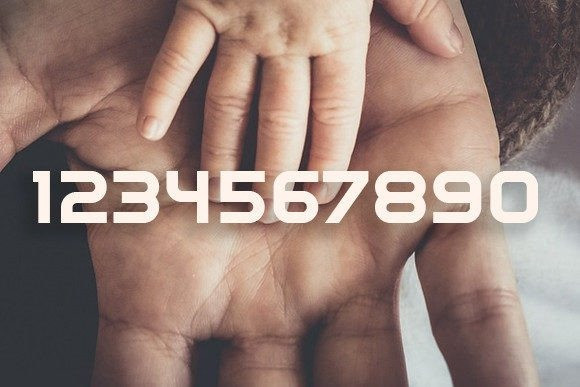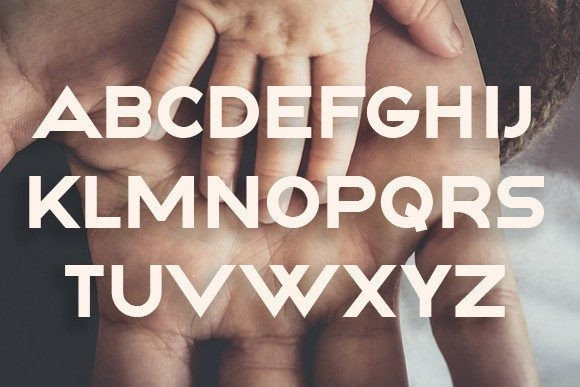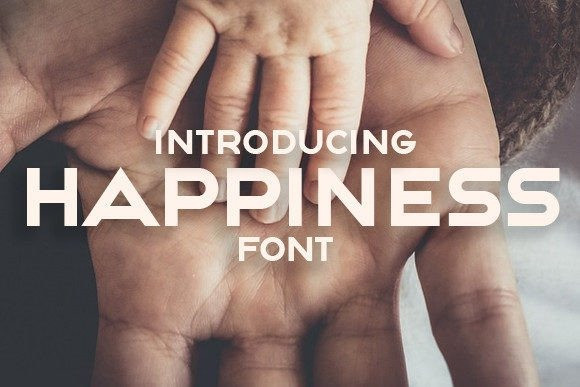
Happiness Font
Looking for a unique, stylish, and fun font for your next project?Introducing Happiness Sans Serif Font, is in extravagant Sans Serif font with great visibility.
Use this font on banners, shirts, and much more.